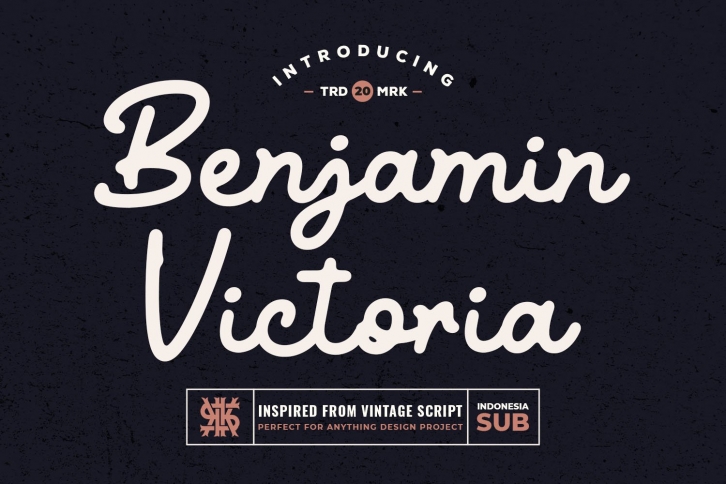
Vintage Script is a beautiful font that was designed by Kotak Kuning Studio. It's a great choice for designers and creatives who need such a font. It was released on February 24, 2021 and the file size is 17.7 MB. Vintage Script may give a more youthful, expressive and casual look to your project. It is a very beautiful, refined, elegant, and high-quality font.